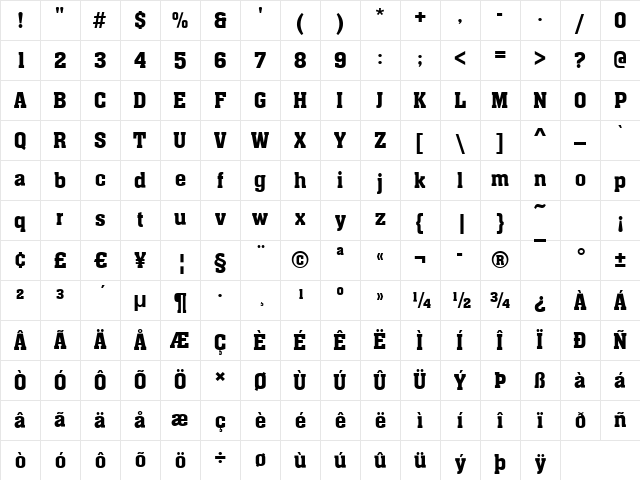
Aargau Regular
Aargau Family
Design Context for Aargau
Aargau is a composed and adaptable typeface that performs quietly and consistently across a wide range of design contexts.